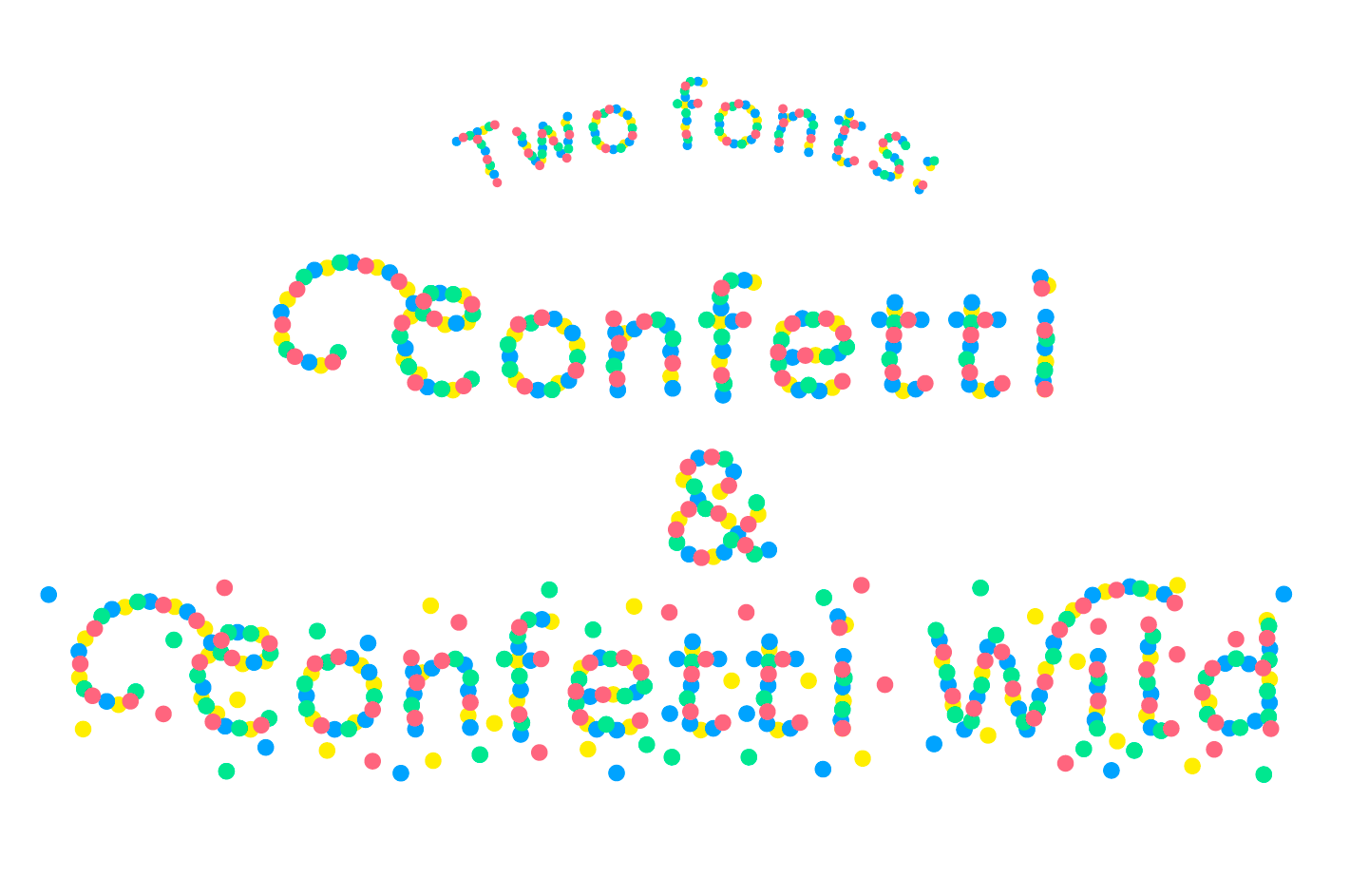
Confetti font
Type colorful texts with Confetti MultiColor font! The Confetti MultiColor font is the perfect font for invitations and cards. Offering multiple features, ornaments, and design elements, this font is the festive answer to all of your creative needs.
Font features:
- Confetti font (clean version)
- Bonus font: Confetti Wild (more decorative version with extra confetti)
- Uppercase & lowercase characters
- Extra uppercase with swashes
- Numbers, punctuation, accents
- End tails & bonus ornaments